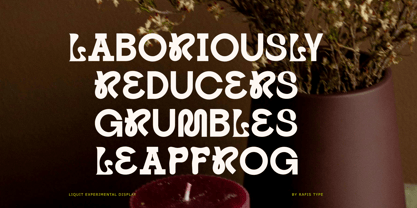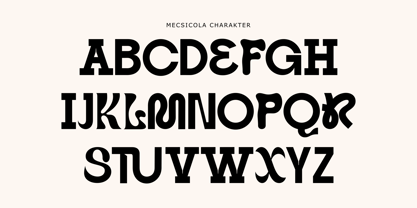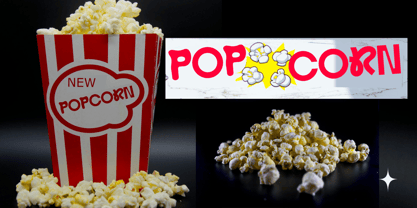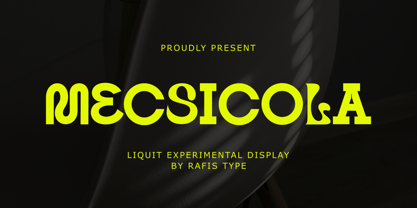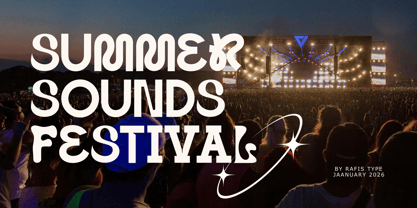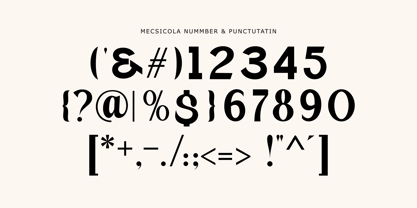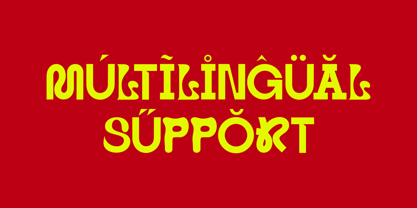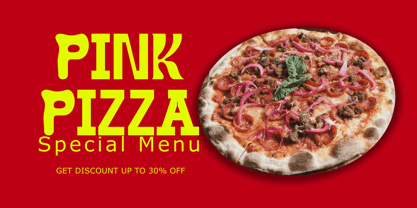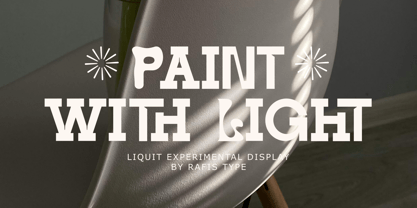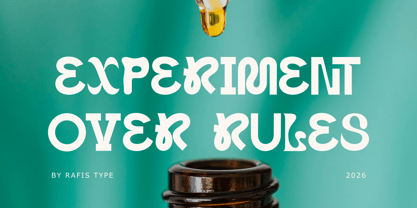
Mecsicola
La familia tipográfica Mecsicola fue diseñada por Agus Priono y publicada por Rafis Type. Mecsicola contiene 1 estilos. Más información sobre esta familia
Mecsicola is a display font with a unique and expressive character, inspired by a modern retro vibe with a playful touch. Its letterforms are bold yet flexible, creating a strong, creative, and stylish impression. This font is perfect for logos, headlines, posters, branding, packaging, and visual designs that aim to stand out with a strong personality.